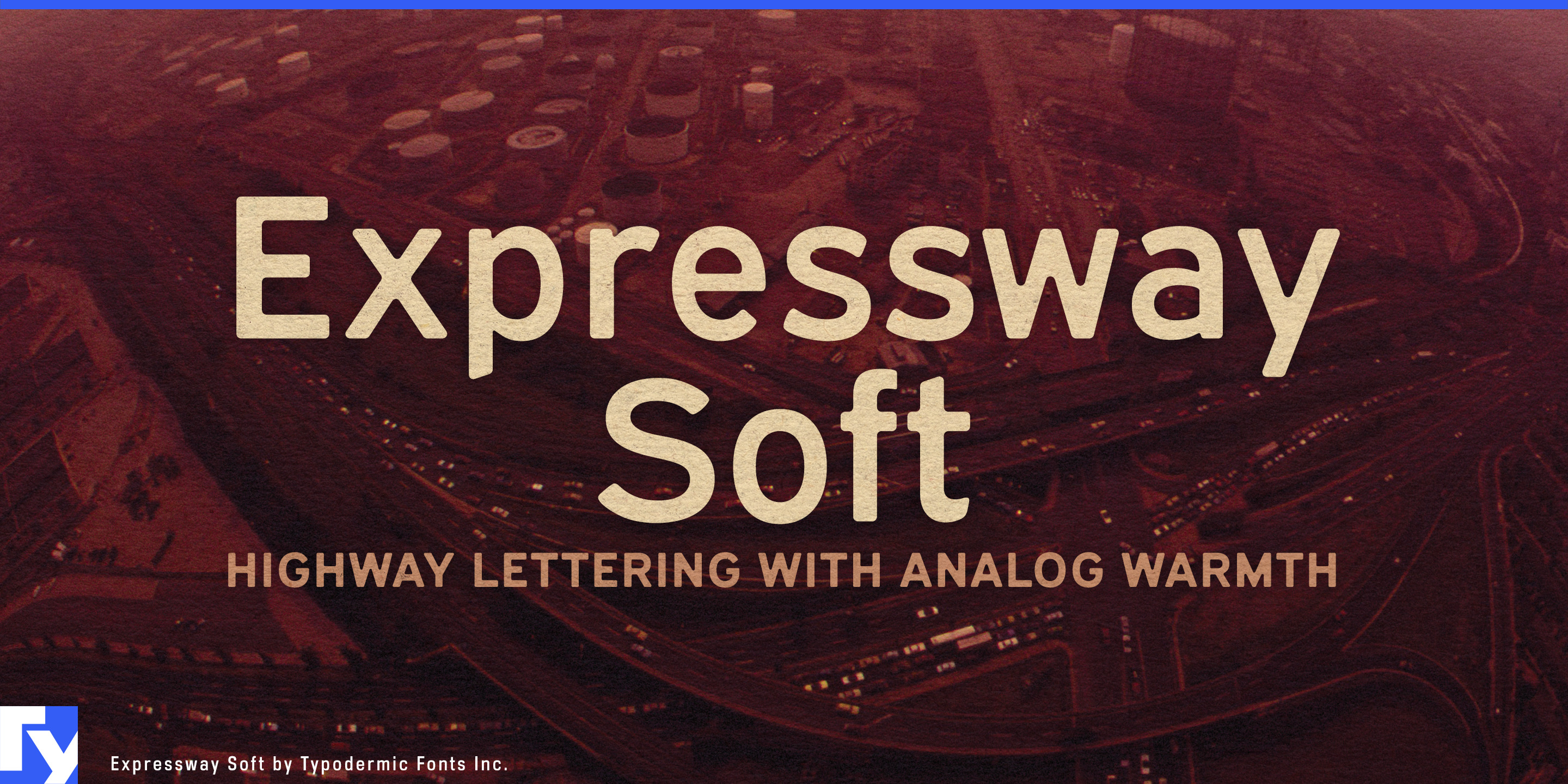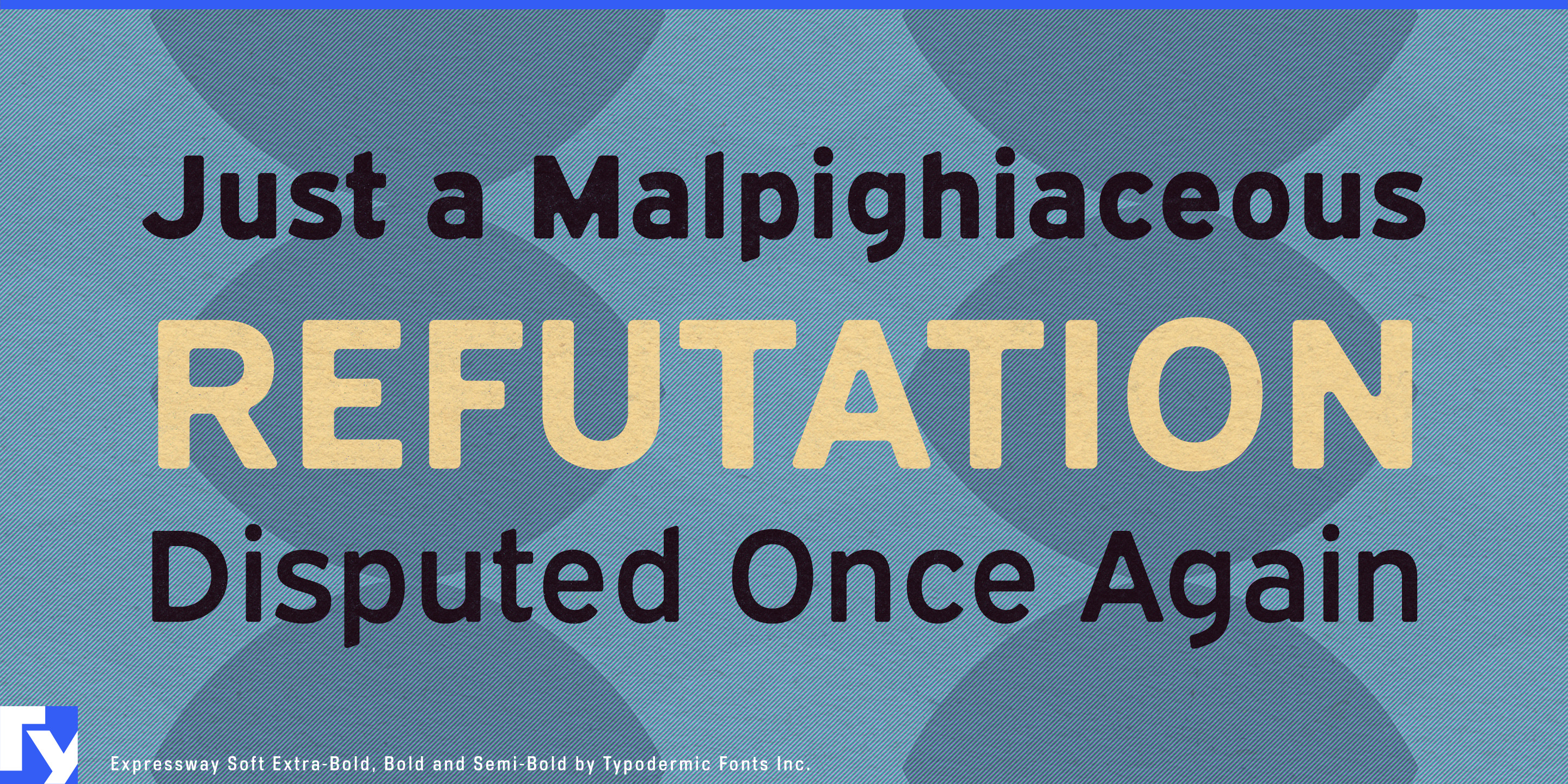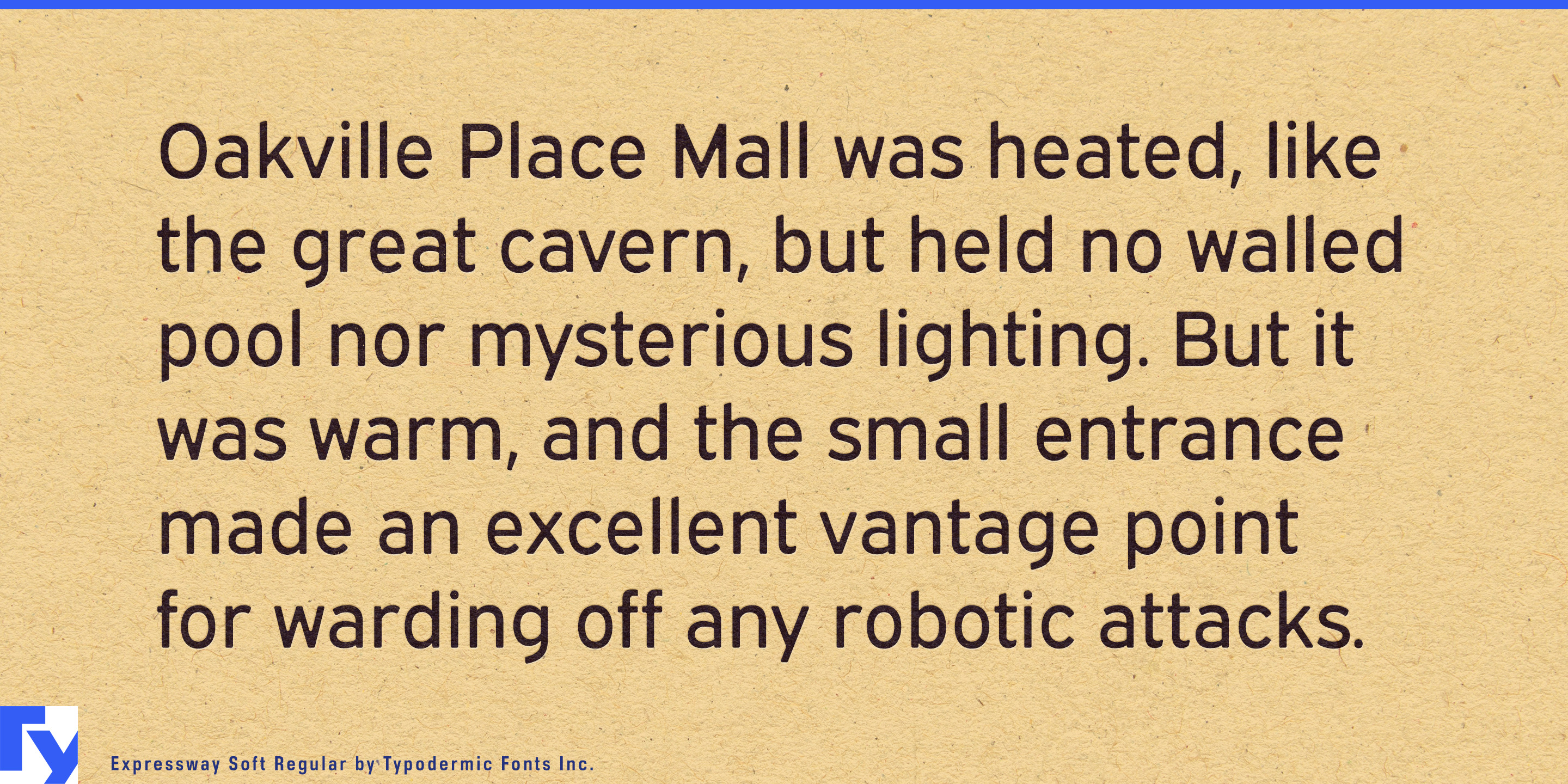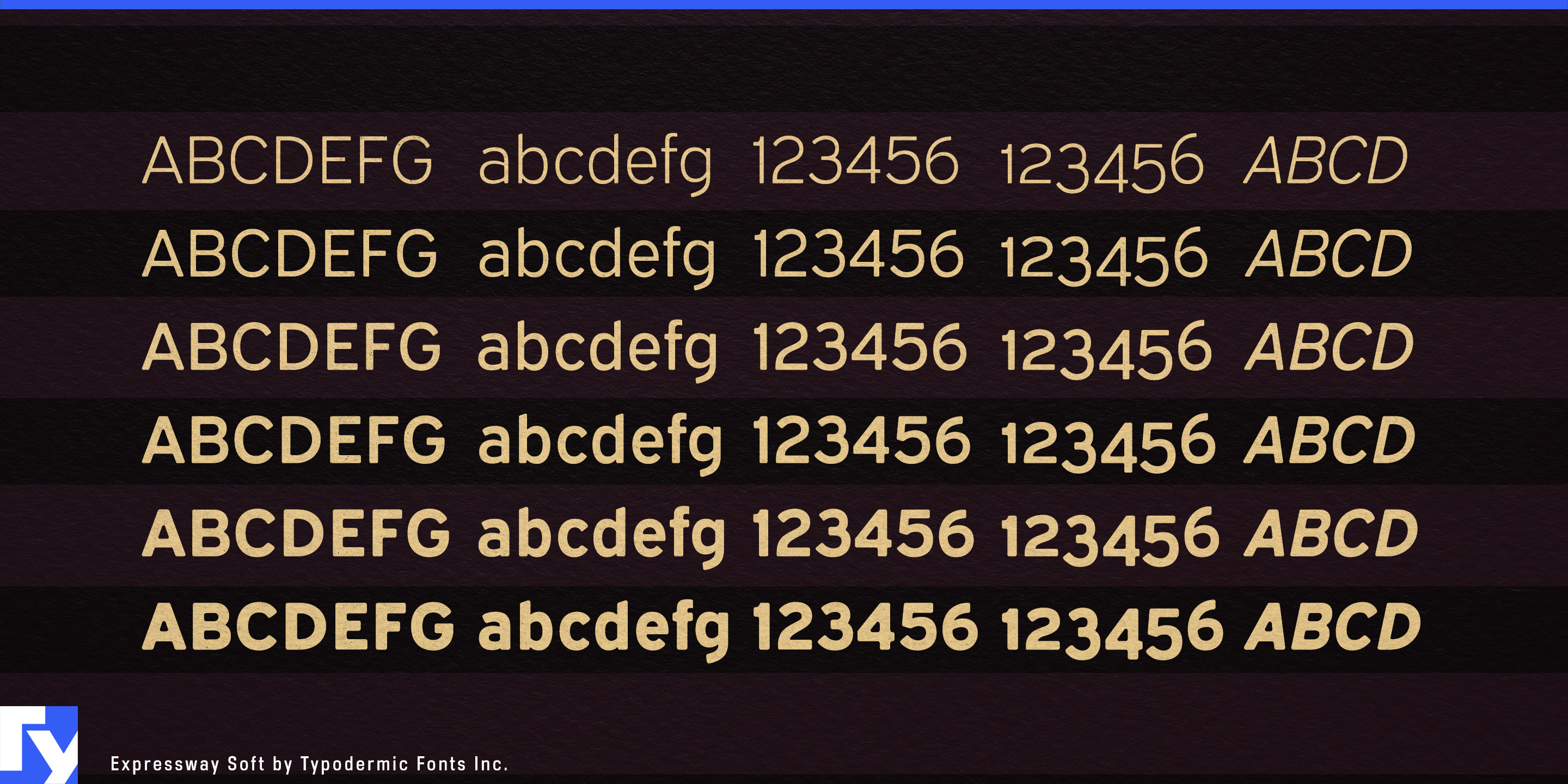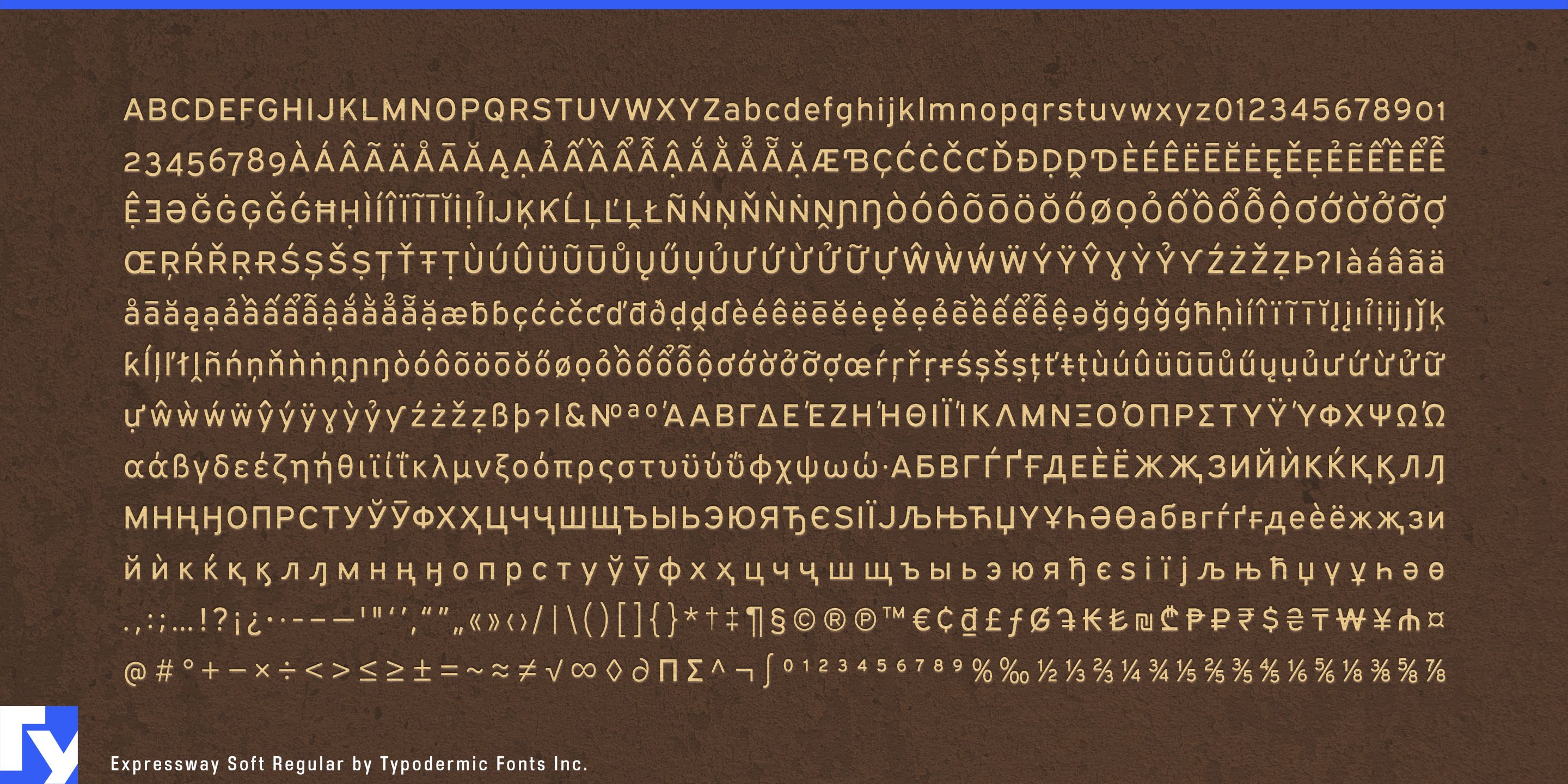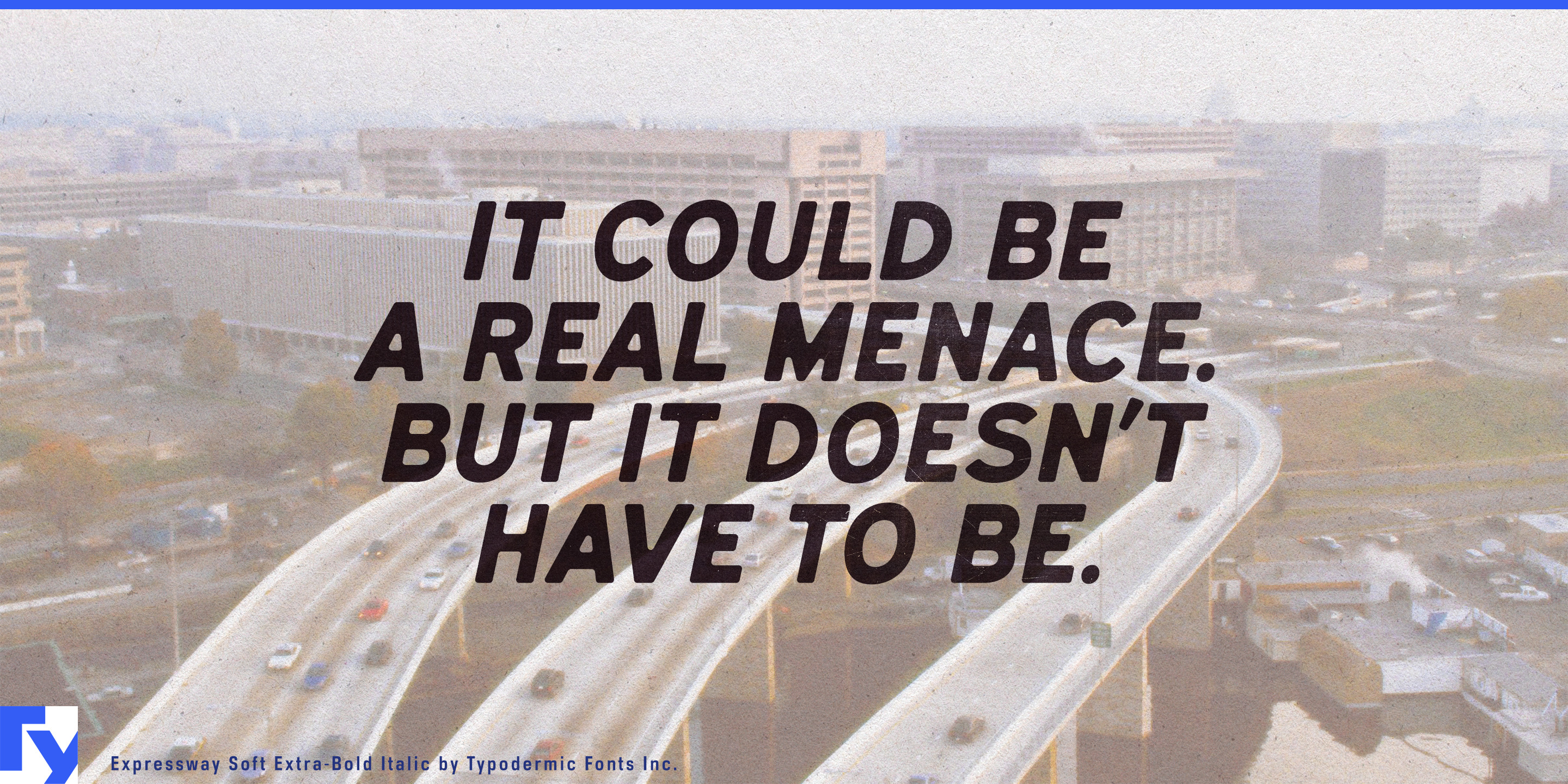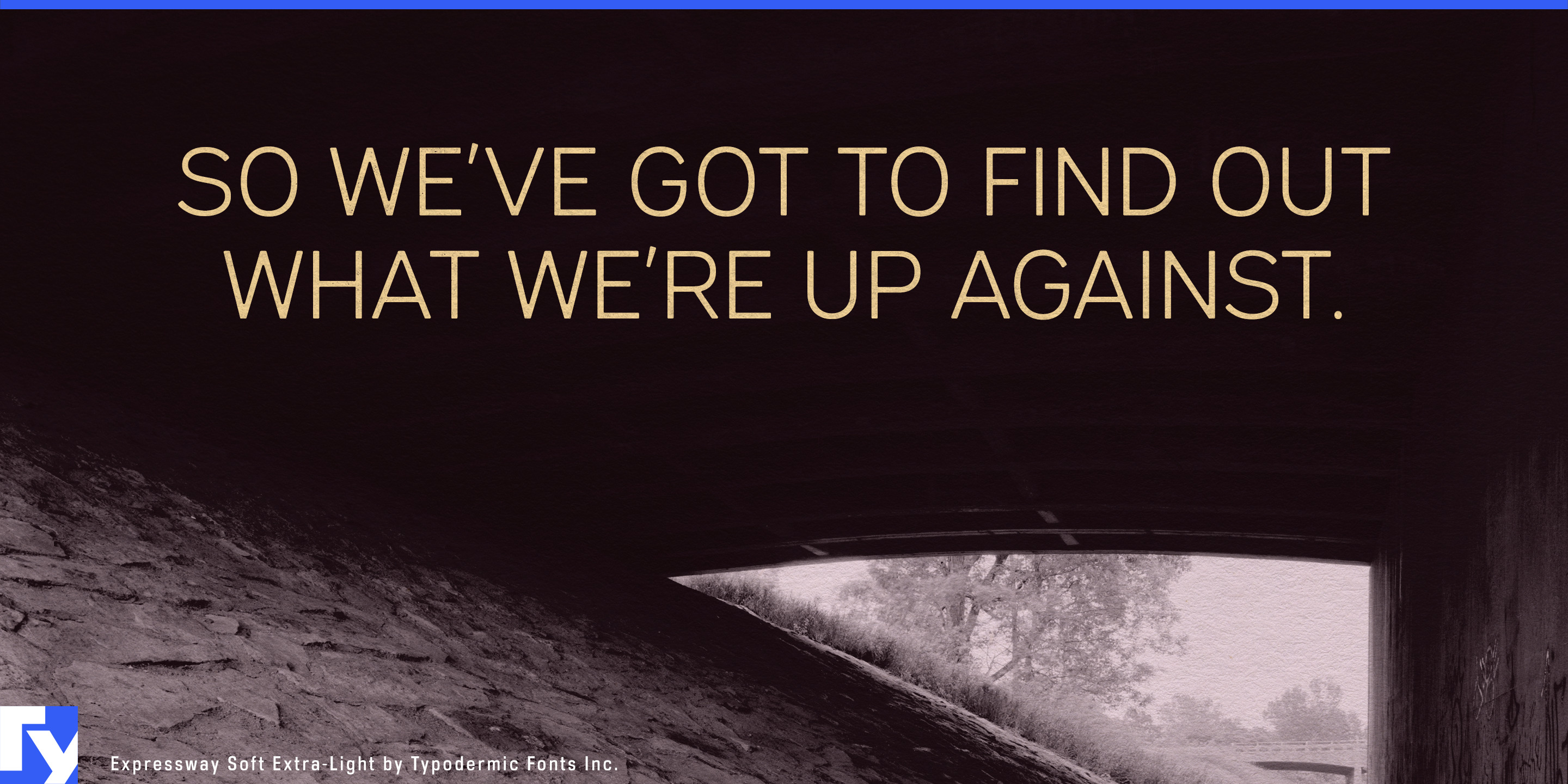
Expressway Soft
Expressway Soft is highway lettering with the sharpness dialed down and the warmth turned up. Inspired by the clarity of the FHWA Standard Alphabets but refined with smooth, rounded corners, it blends the authority of road signage with a more human touch.
With 12 styles?